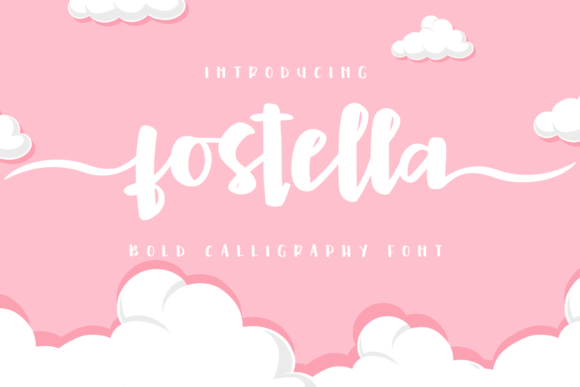
Fostella Font: The Ultimate Choice for Creative Projects
Are you a designer, crafter, or DIY enthusiast looking for a font that can add a personal touch to your creative projects? Look no further than Fostella Font! This cute and casual handwritten font is designed to bring a friendly feel to any design, making it perfect for a wide range of applications.
What is Fostella Font?
Fostella is a carefully crafted handwritten font that exudes warmth and approachability. Its unique character design makes it an excellent choice for anyone looking to add a personal touch to their designs. Whether you’re creating social media graphics, crafting DIY projects, or designing calligraphy scripts, Fostella Font is the perfect companion.
Key Features of Fostella Font
- Cute and Casual Design: Fostella Font boasts a playful and informal design that’s sure to capture the attention of your audience.
- Friendliness: The font’s friendly feel makes it perfect for designs that require a personal touch, such as greeting cards, invitations, and social media graphics.
- Versatility: Fostella Font can be used for a wide range of creative projects, from Instagram graphics to calligraphy scripts and DIY crafts.
- Easy to Read: The font’s clear and legible design ensures that your message is conveyed effectively, making it perfect for body text and headings.
Uses of Fostella Font
Fostella Font is an incredibly versatile font that can be used for various creative projects, including:
- Instagram Graphics: Add a personal touch to your Instagram posts and stories with Fostella Font.
- Calligraphy Scripts: Use Fostella Font to create beautiful calligraphy scripts for DIY projects, such as wedding invitations, greeting cards, and gift tags.
- DIY Crafts: Fostella Font is perfect for crafting DIY projects, such as handmade cards, scrapbooking, and journaling.
- Branding and Marketing: Use Fostella Font to create a friendly and approachable brand identity for your business.
Why Choose Fostella Font?
With so many fonts available, why choose Fostella Font? Here are just a few reasons:
- Unique Character Design: Fostella Font has a unique character design that sets it apart from other fonts.
- High-Quality Design: Fostella Font is designed with high-quality craftsmanship, ensuring that your designs look professional and polished.
Tips for Using Fostella Font
Here are some tips for getting the most out of Fostella Font:
- Experiment with Font Sizes: Fostella Font looks great in a variety of font sizes, from small body text to large headings.
- Pair with Other Fonts: Fostella Font pairs well with other fonts, making it perfect for creating visually appealing designs.
- Use for Headings and Body Text: Fostella Font is suitable for both headings and body text, making it a great choice for a wide range of designs.
Fostella Font is a versatile and charming handwritten font that’s perfect for designers, crafters, and DIY enthusiasts. Its unique character design, friendly feel, and ease of use make it an excellent choice for a wide range of creative projects. Whether you’re looking for a font for Instagram graphics, calligraphy scripts, or DIY crafts, Fostella Font is sure to turn your creative ideas into true pieces of art!